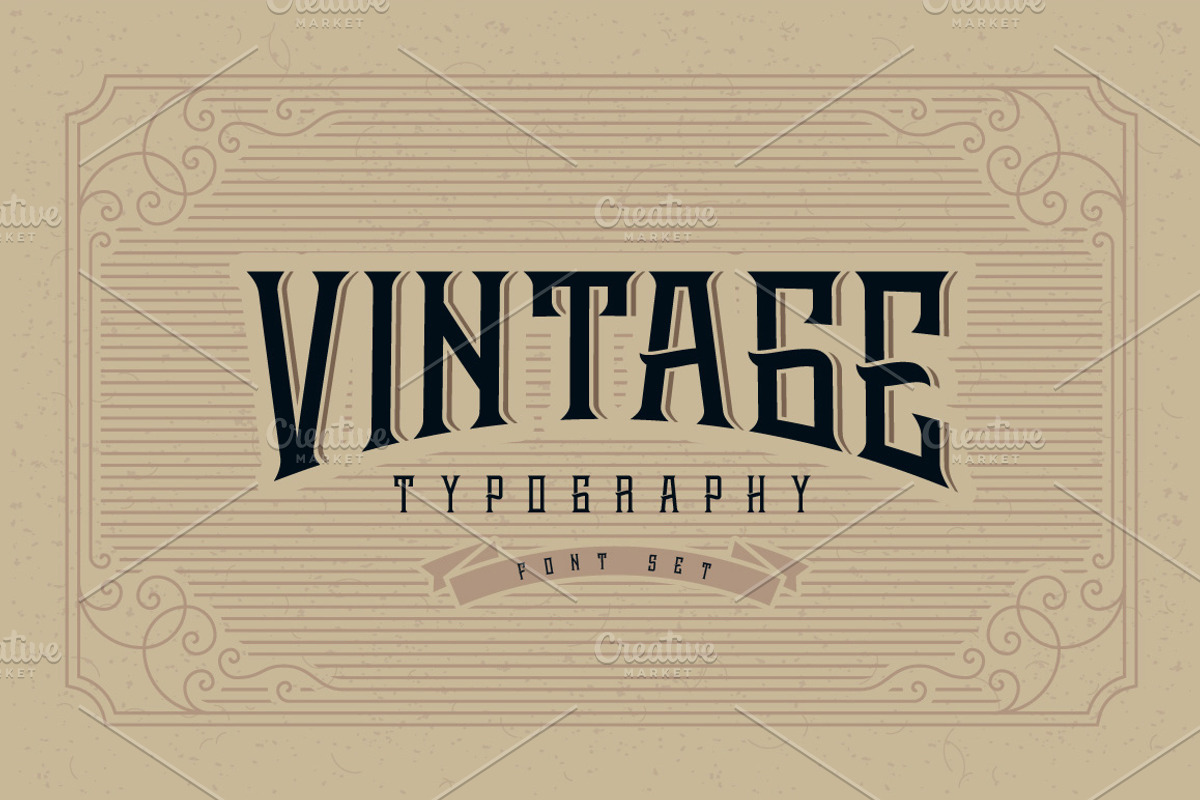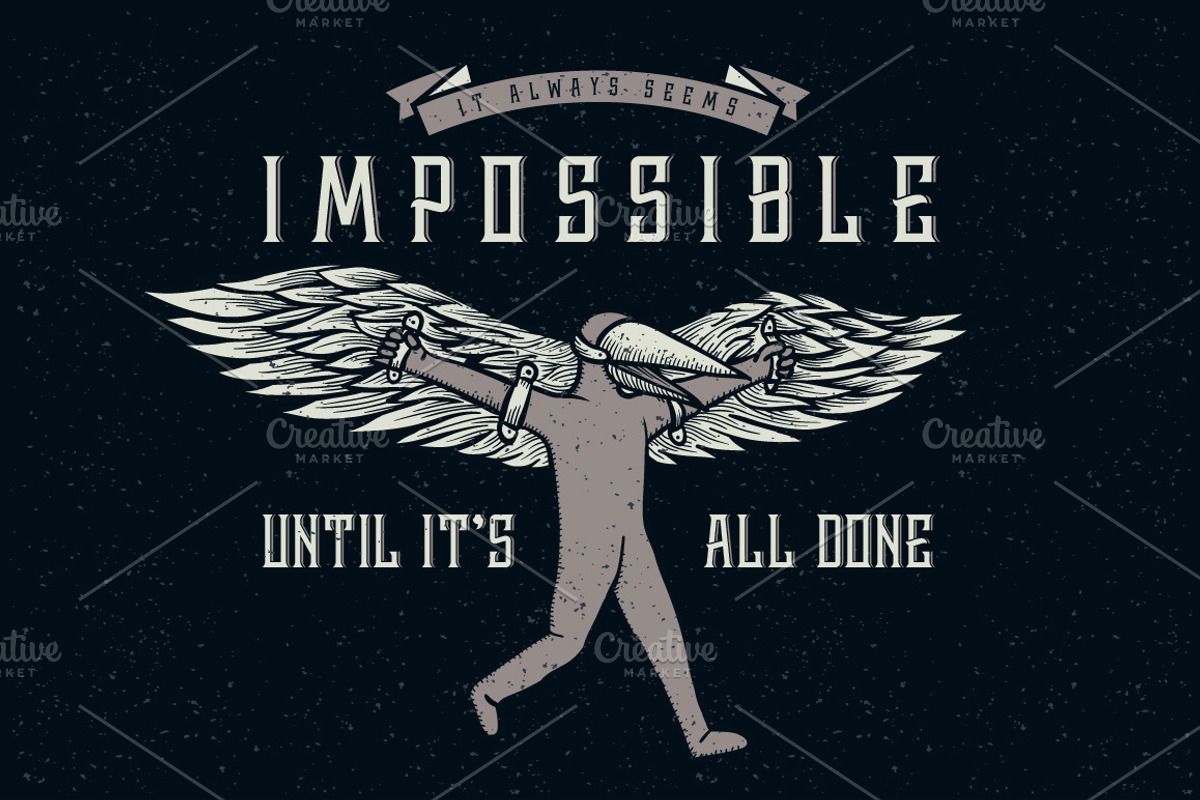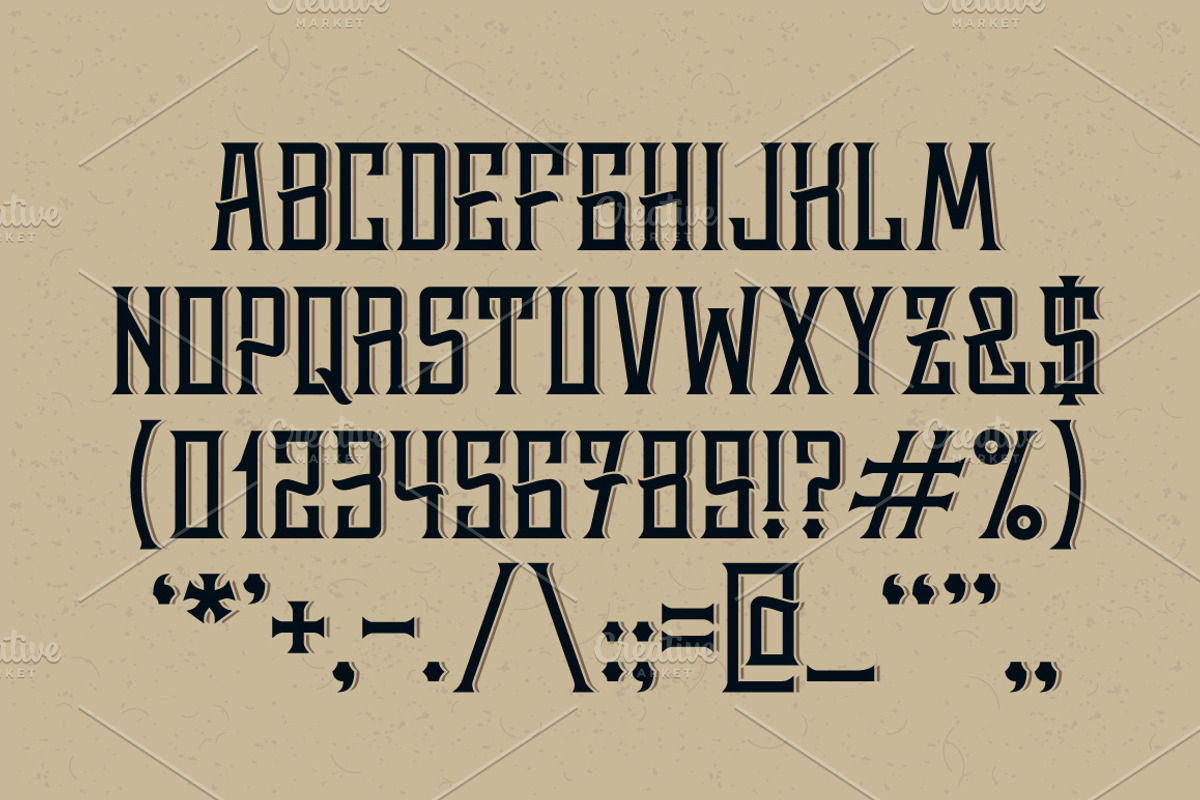
Whiskey label font + design elements
Whiskey label font + design elements by Gleb Guralnyk is a font selected for branding, posters, packaging, typography.
- As a bonus included a hand drawn illustration of Icarus.
Why Whiskey label font + design elements is worth a look
Whiskey label font + design elements by Gleb Guralnyk fits naturally into Branding, posters, packaging, typography.